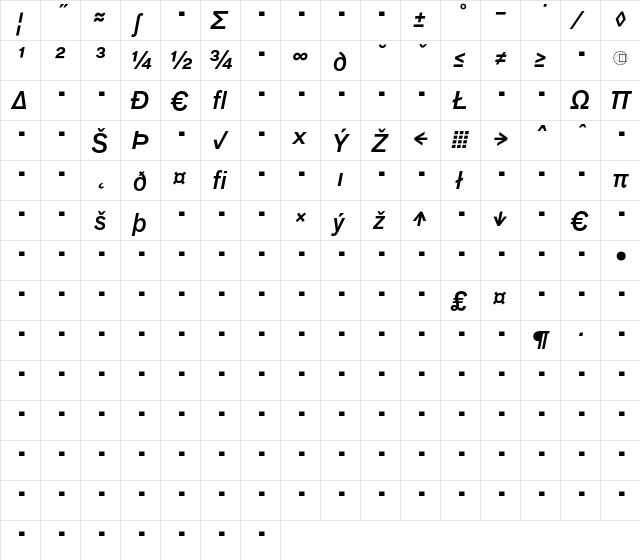
BauLF-MediumItalicExp Regular
Design Context for BauLF-MediumItalicExp Typeface
BauLF-MediumItalicExp offers clean, dependable letterforms without strong stylistic allegiance, making it a practical choice for designers who need flexibility. Its italic angle brings a sense of urgency and motion to the letterforms.
Pro Tip: Use BauLF-MediumItalicExp for emphasis, pull quotes, and subheadings where its slanted energy can add rhythm to the layout.